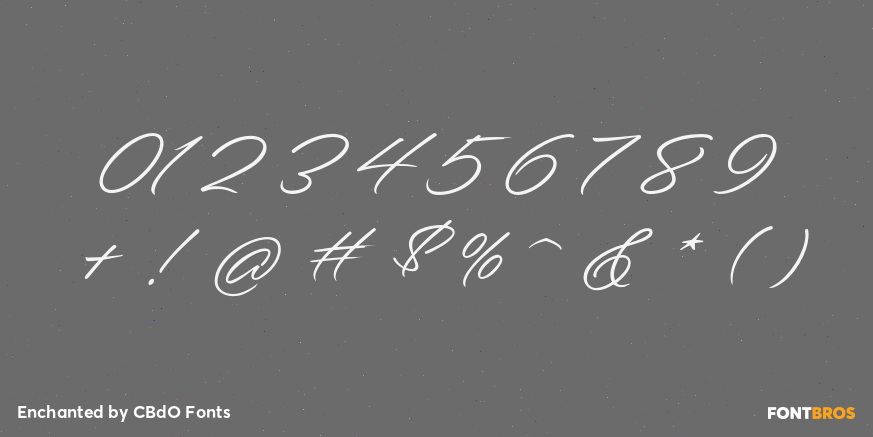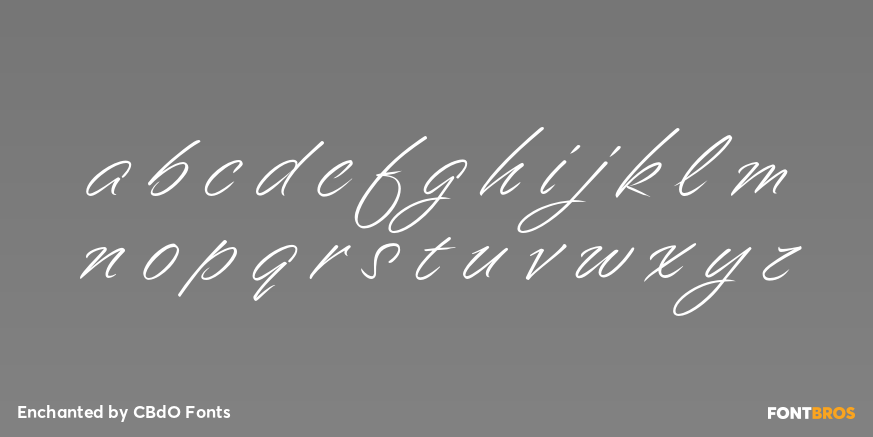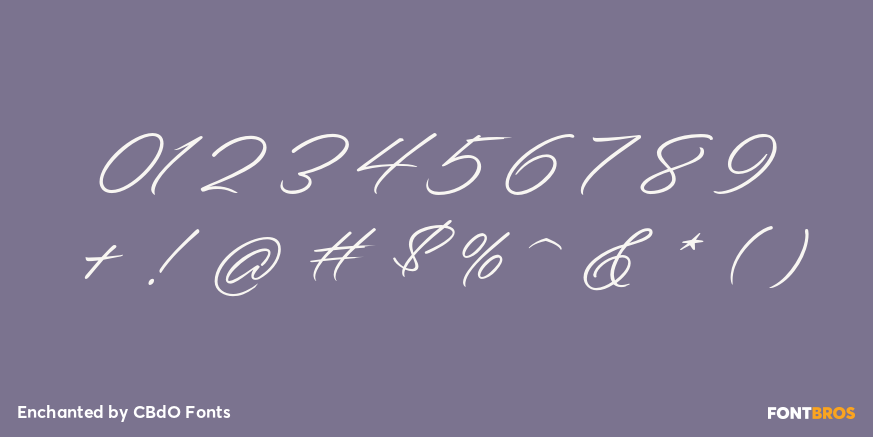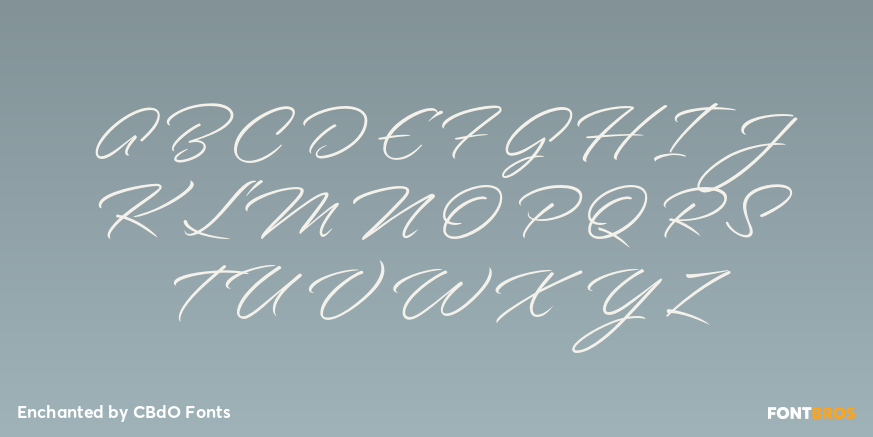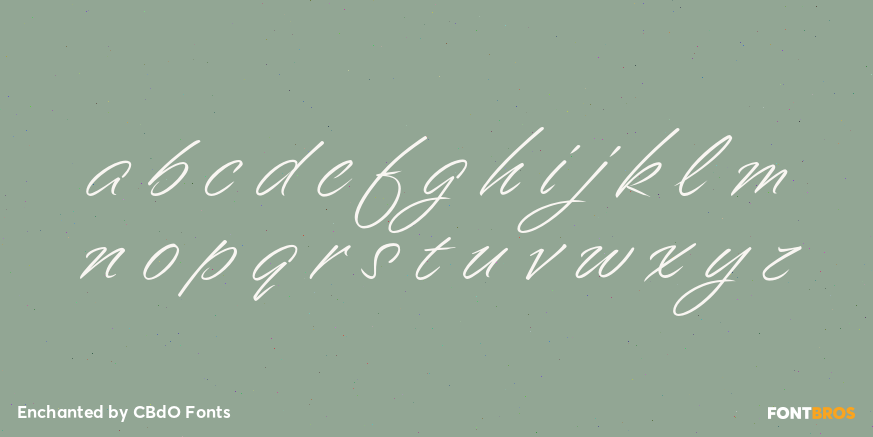
Enchanted
Font Family by CBdO Fonts
Buy NowEnchanted is a unique contemporary font that mimics the style of handwriting and brush scripts; yet is neither. Great for logos, captions and large bodies of text. Paragraphs set in Enchanted are easily read since the letters do not connect; aiding in its legibility. Enchanted contains seven stylistic alternates.